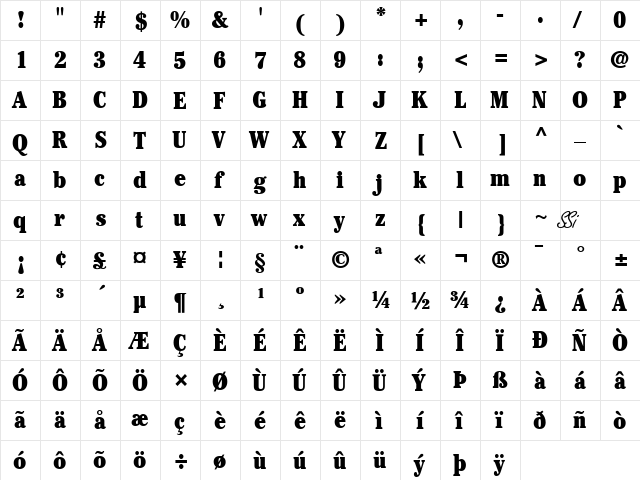
Cheltenham Black Condensed SSi Black Condensed
Design Context for Cheltenham Black Condensed SSi Typeface
Cheltenham Black Condensed SSi is a composed and adaptable typeface that performs quietly and consistently across a wide range of design contexts. Its narrow stance lets it pack a punch even in space-constrained designs.